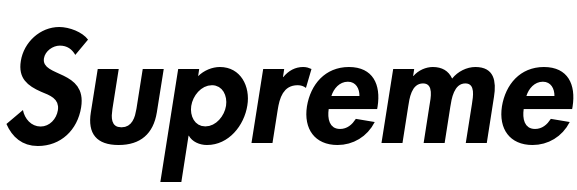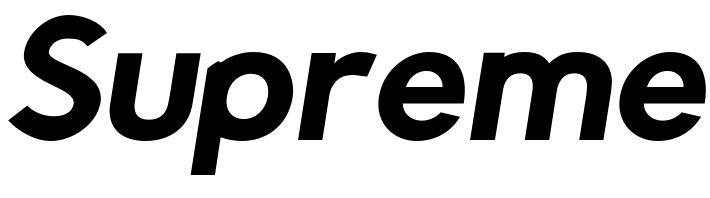
Supreme Font
ApparelSupreme is a streetwear and skatewear brand founded in New York City in 1994. It has gained a cult following for its limited edition releases and collaborations with other brands and artists.
Supreme is well recognized by its iconic red box logo which features its logotype in white. The typeface is remarkably similar to the geometric sans-serif Futura Heavy Oblique designed by Paul Renner in 1927. You can view more information and download the font here.